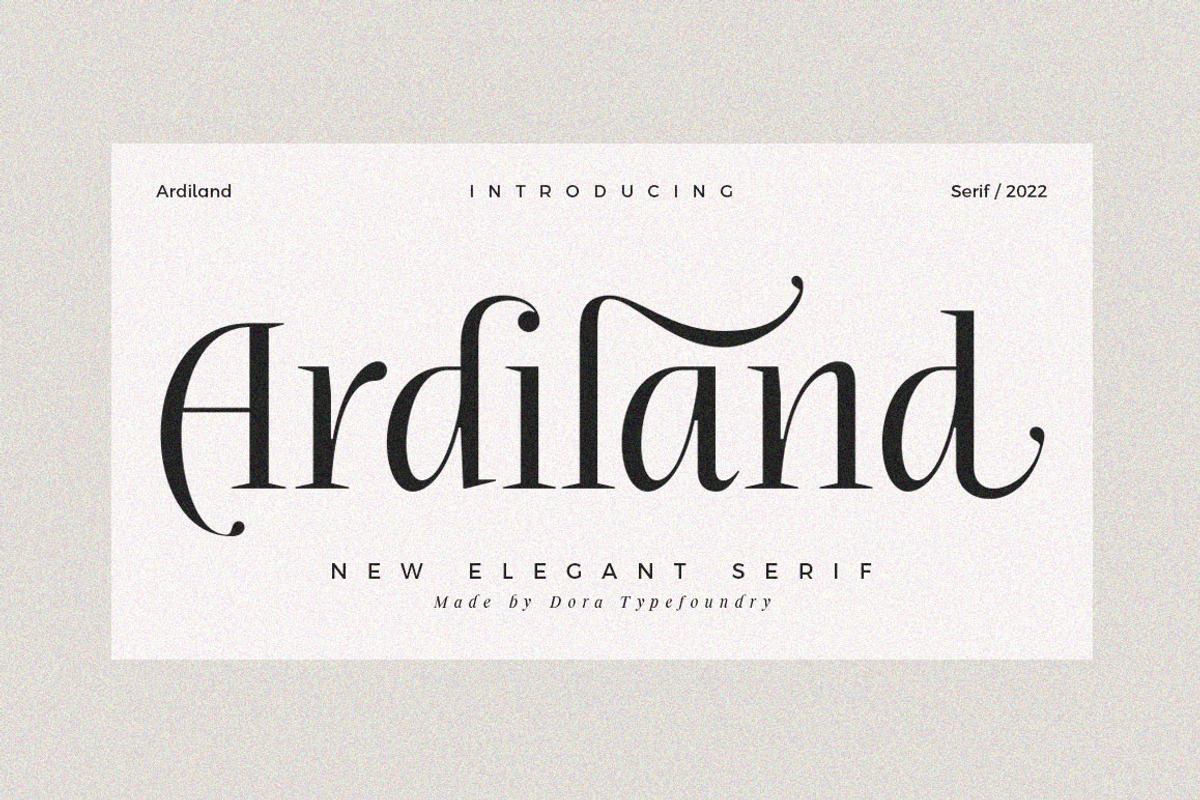
Ardiland | Elegant Serif Font Free Download is a refined and sophisticated typeface designed to bring timeless elegance to your designs. With its clean lines, sharp serifs, and high contrast strokes, Ardiland is perfect for luxury branding, editorial layouts, invitations, and high-end product packaging.
This font combines classical design elements with modern aesthetics, making it versatile for both print and digital projects. Ardiland includes uppercase and lowercase characters, punctuation, multilingual support, and is fully compatible with both Mac and Windows systems.